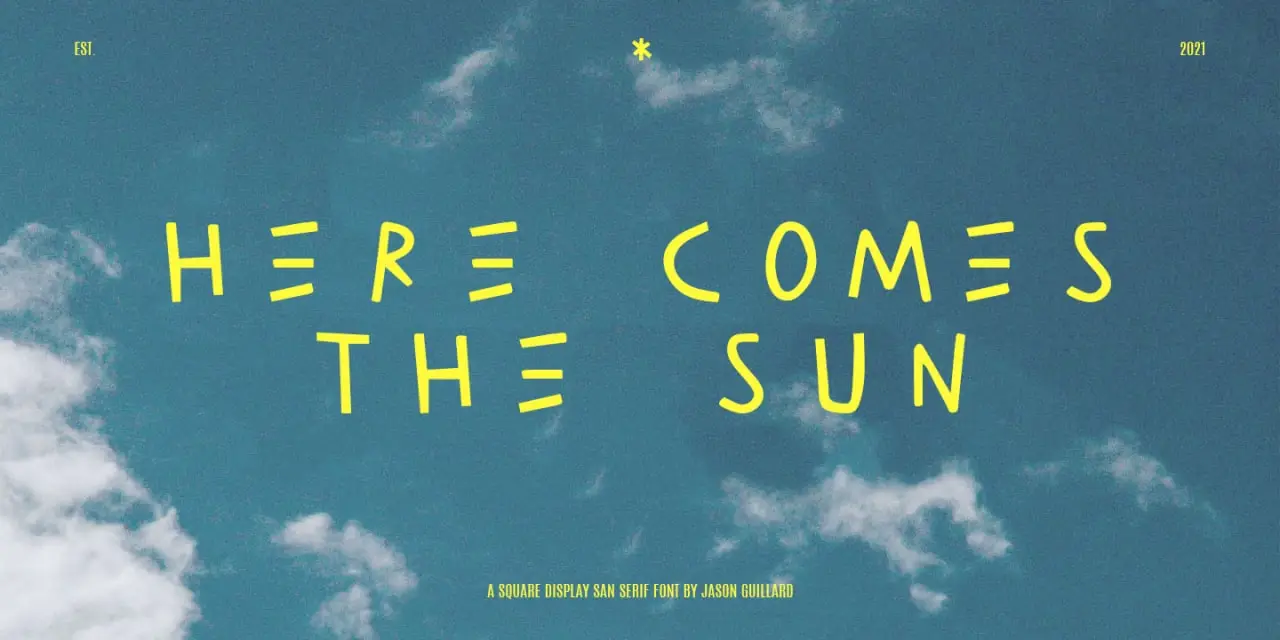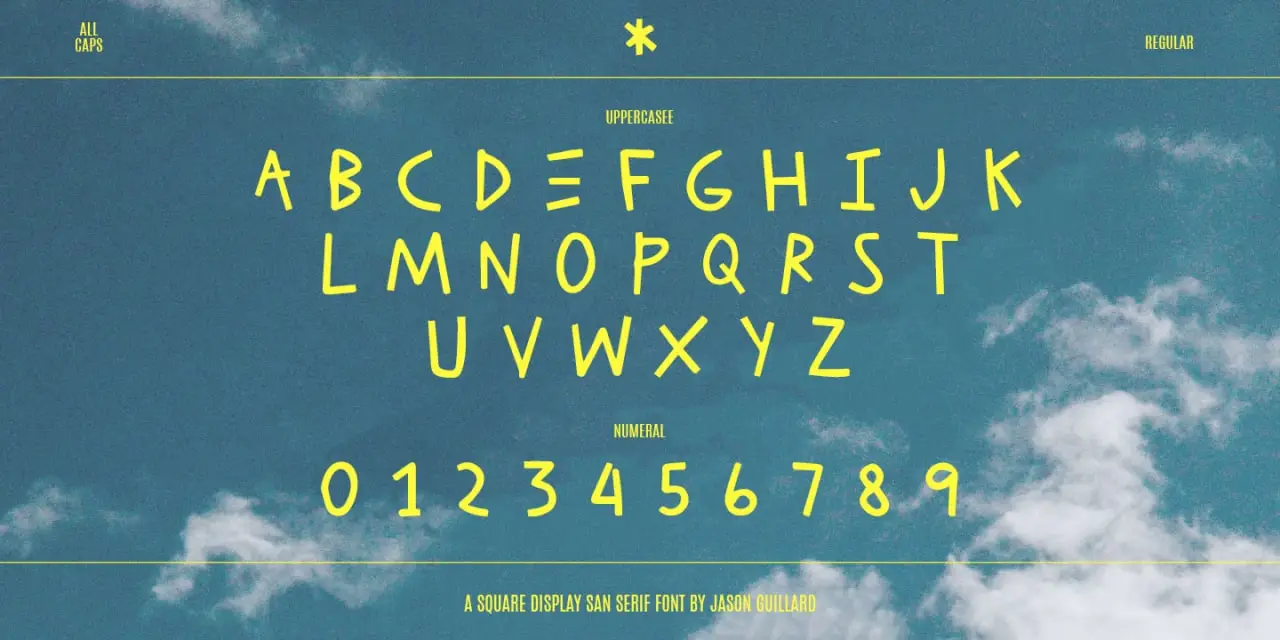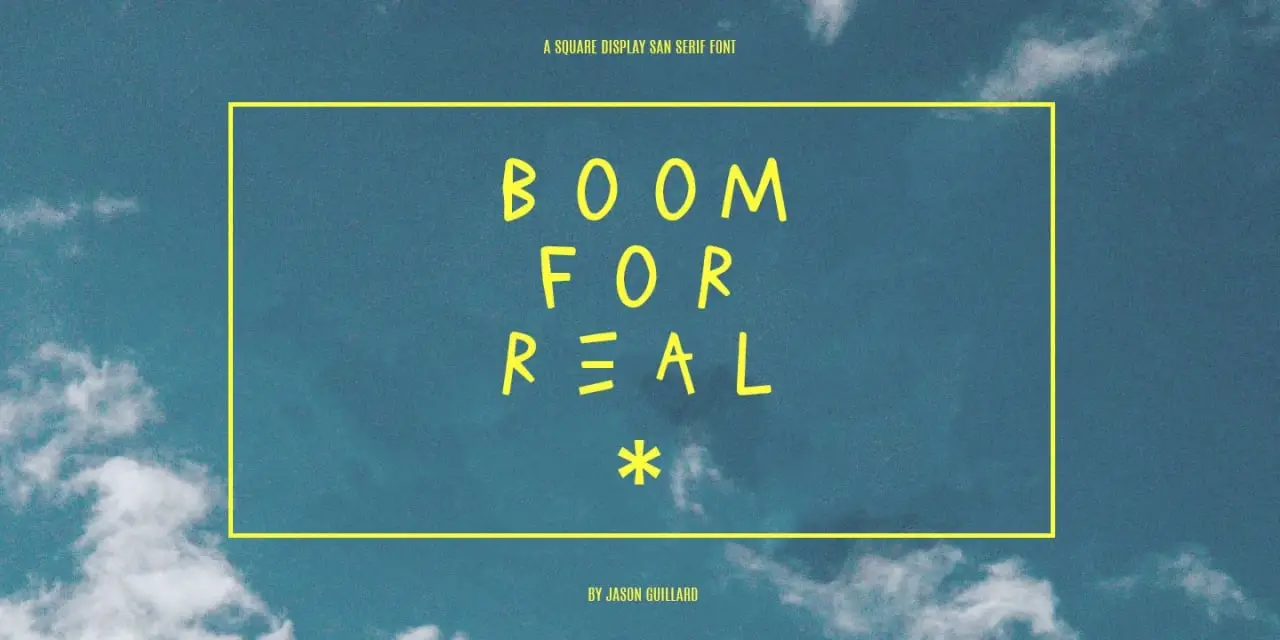
_Boom For Real_ Basquiat Graffiti-Style Font By Jason Guillard
Introducing the _Boom For Real_ Basquiat Graffiti-Style Font by Jason Guillard, a unique typeface that captures the vibrant essence of street art. This font is inspired by the iconic works of Jean-Michel Basquiat, blending artistic flair with contemporary design.
• Style: Graffiti, Handwritten
The _Boom For Real_ font is perfect for branding projects, logo designs, posters, and any creative work that requires a bold, artistic touch. Its unique style makes it ideal for both digital and print applications.